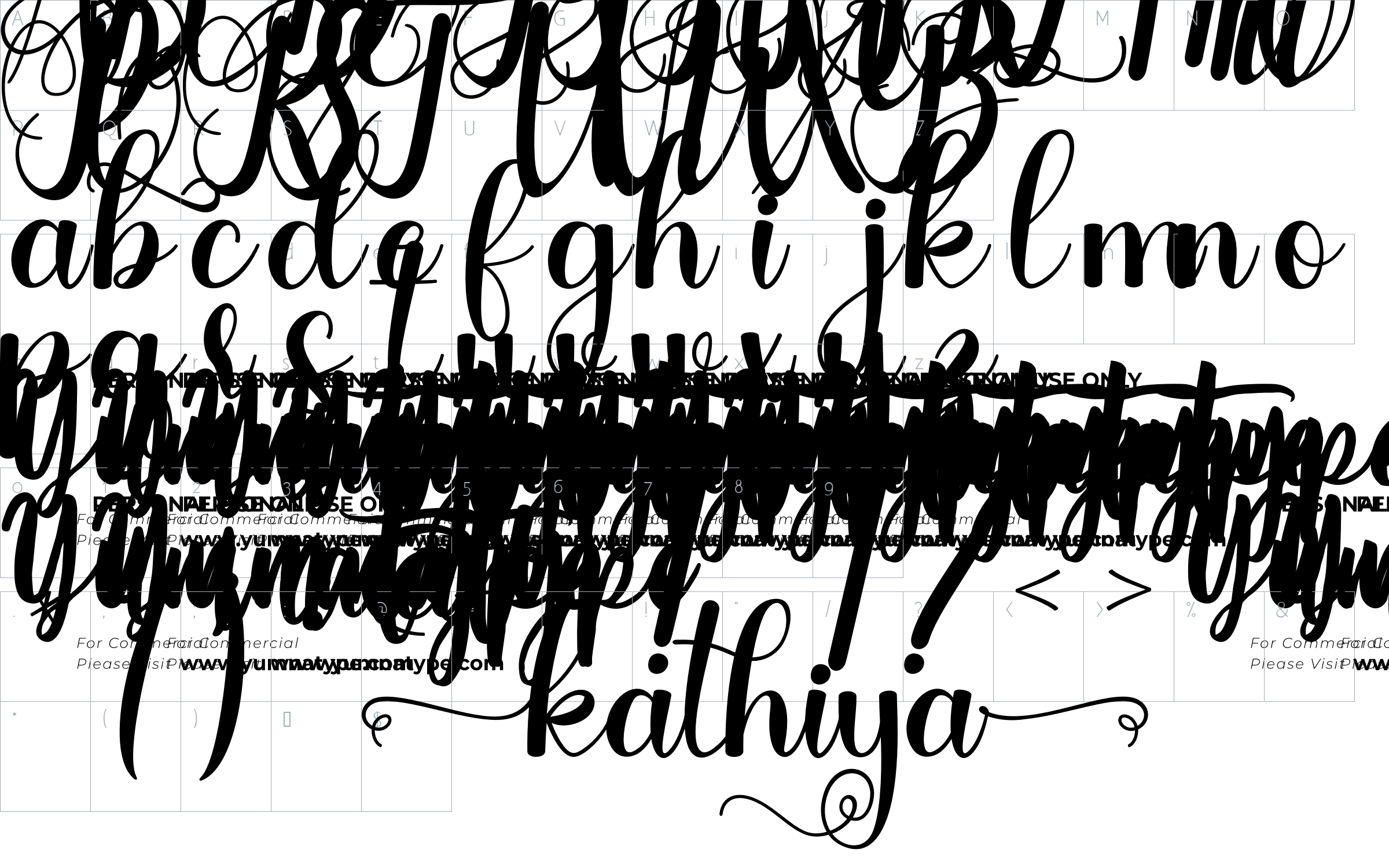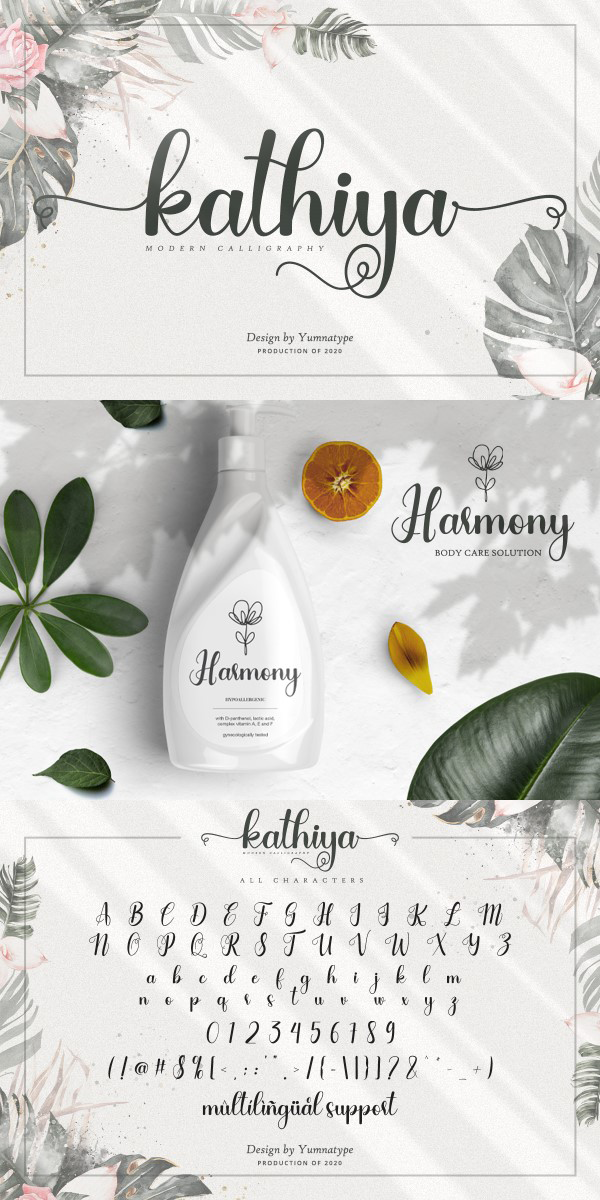
Kathiya Font
About Kathiya
Kathiya is beautiful and modern script.
It brings a beautiful and modern typeface that best used for weddings, branding, logotype, and quotes.:
Features :
-Beautiful Alternates + Swashes
-Beginning Swash and Ending Swashes (a-z)